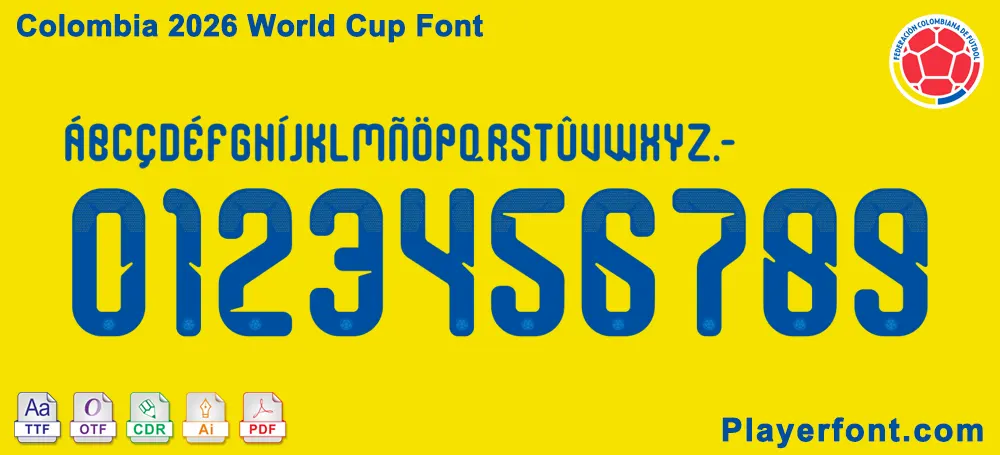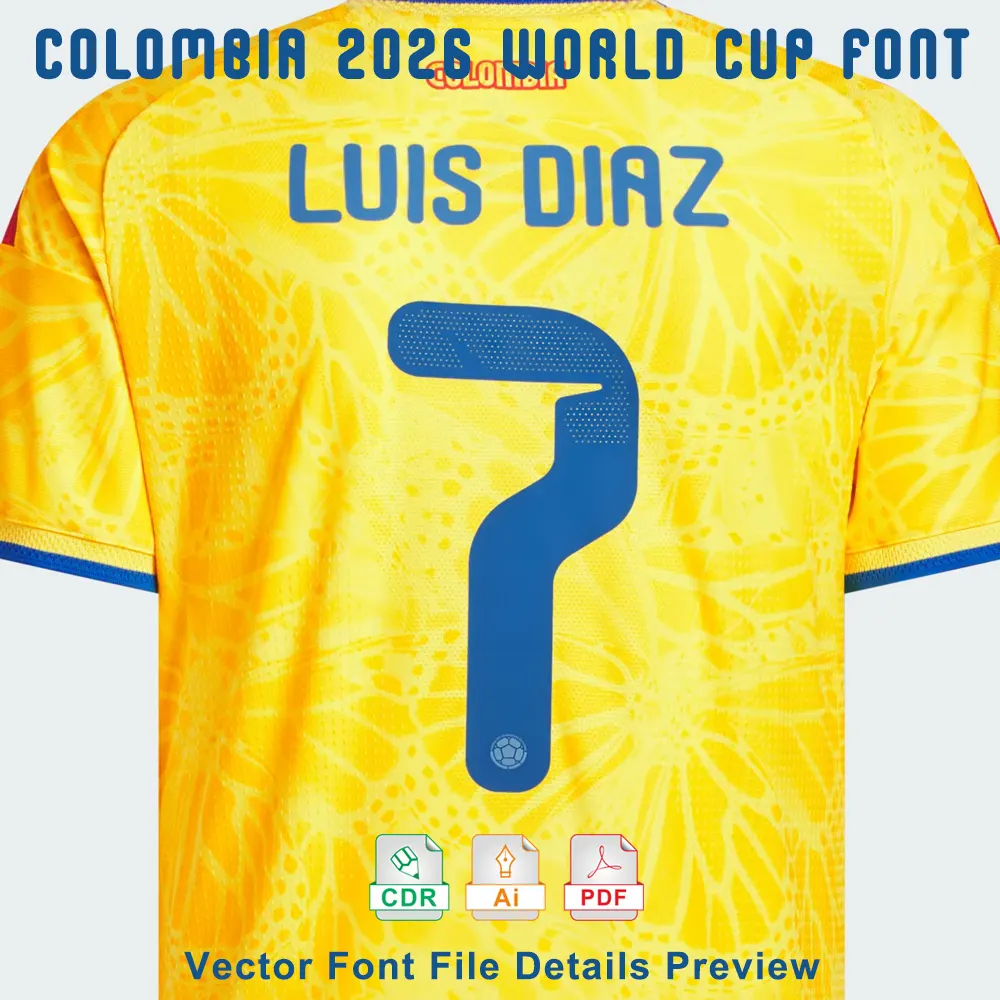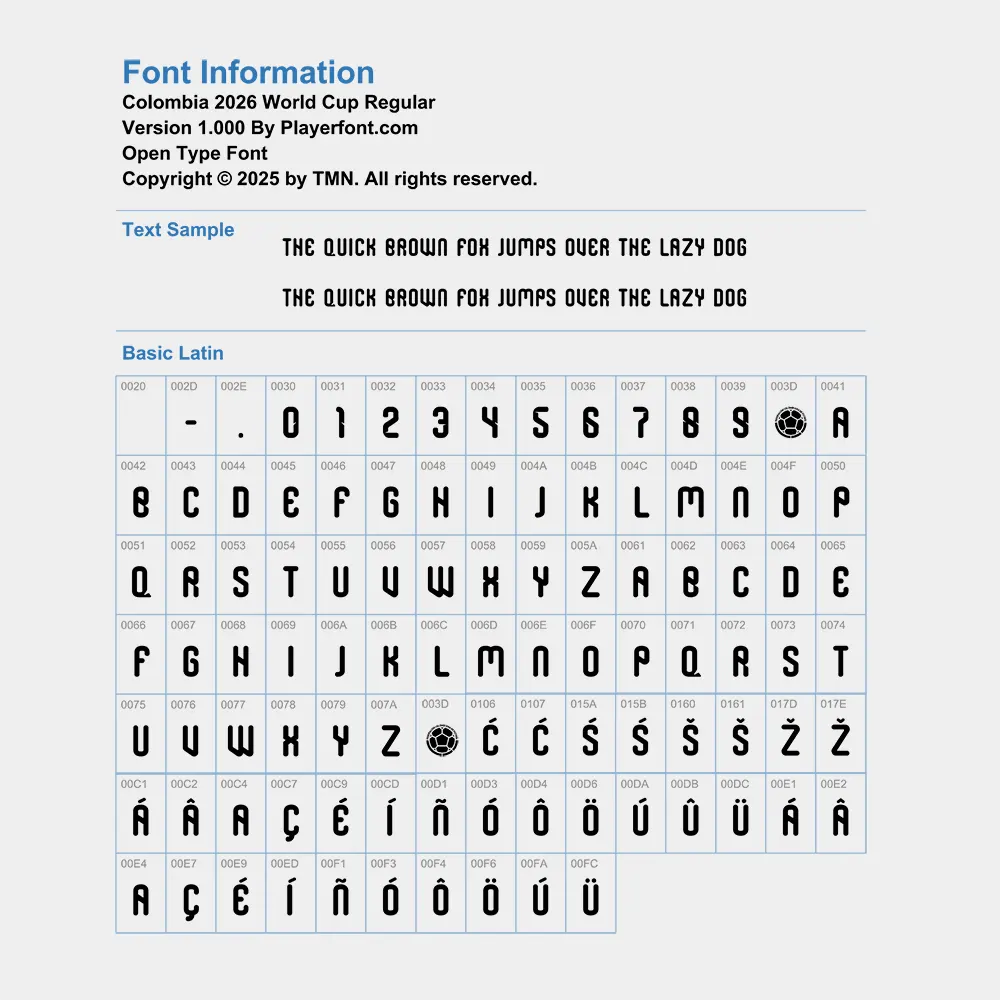
Elevate your sports designs with the Colombia 2026 World Cup Font. This typeface captures the vibrant energy and modern aesthetic of the Los Cafeteros national team. Whether you are a professional kit designer or a passionate fan, this vector pack provides everything you need for high-precision printing and digital media.
Full Character Set: Includes all uppercase letters, specialized punctuation, and the unique 2026 stylized numbers.